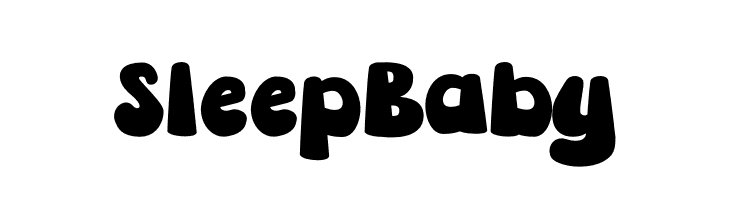
A graceful script font with flowing, cursive lines and elegant flourishes.
A bold, decorative font with a 3D effect and star embellishments.
A bold, decorative font with a unique striped pattern, ideal for eye-catching displays.
A bold, decorative font with intricate details and strong character presence.
A bold, playful handwritten font with a dynamic and informal style.
A bold, decorative font with intricate detailing and elegant flourishes.
A bold, dynamic script font with elegant, flowing cursive letterforms.
A flowing, cursive script font with elegant, interconnected characters.
A playful, bold font with rounded edges and a hand-drawn aesthetic.
A playful, handwritten font with a smooth, flowing style.